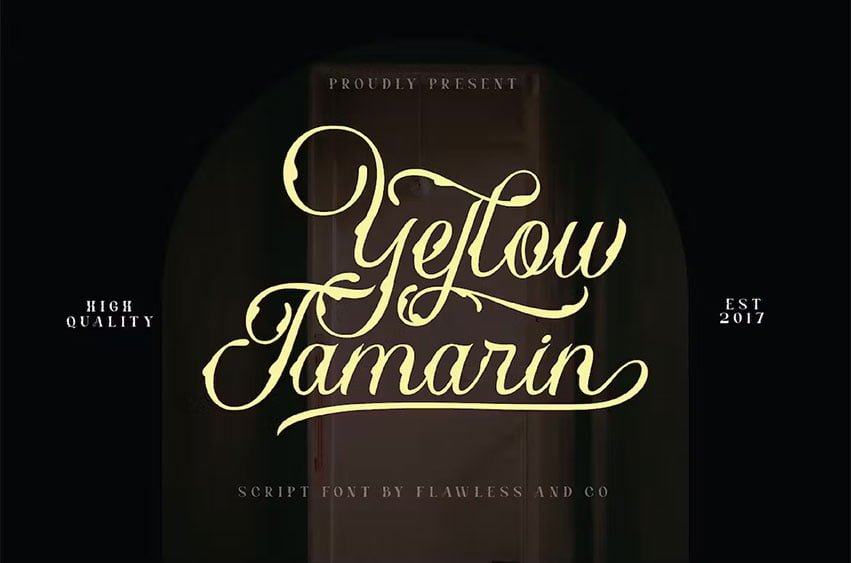
Yellow Tamarin Font Decorative font, Blackletter font, metal font, tatto font, procreate font, canva font
introducing our new “Yellow Tamarin” Modern Blackletter Font with Elegant Style is perfect for your design